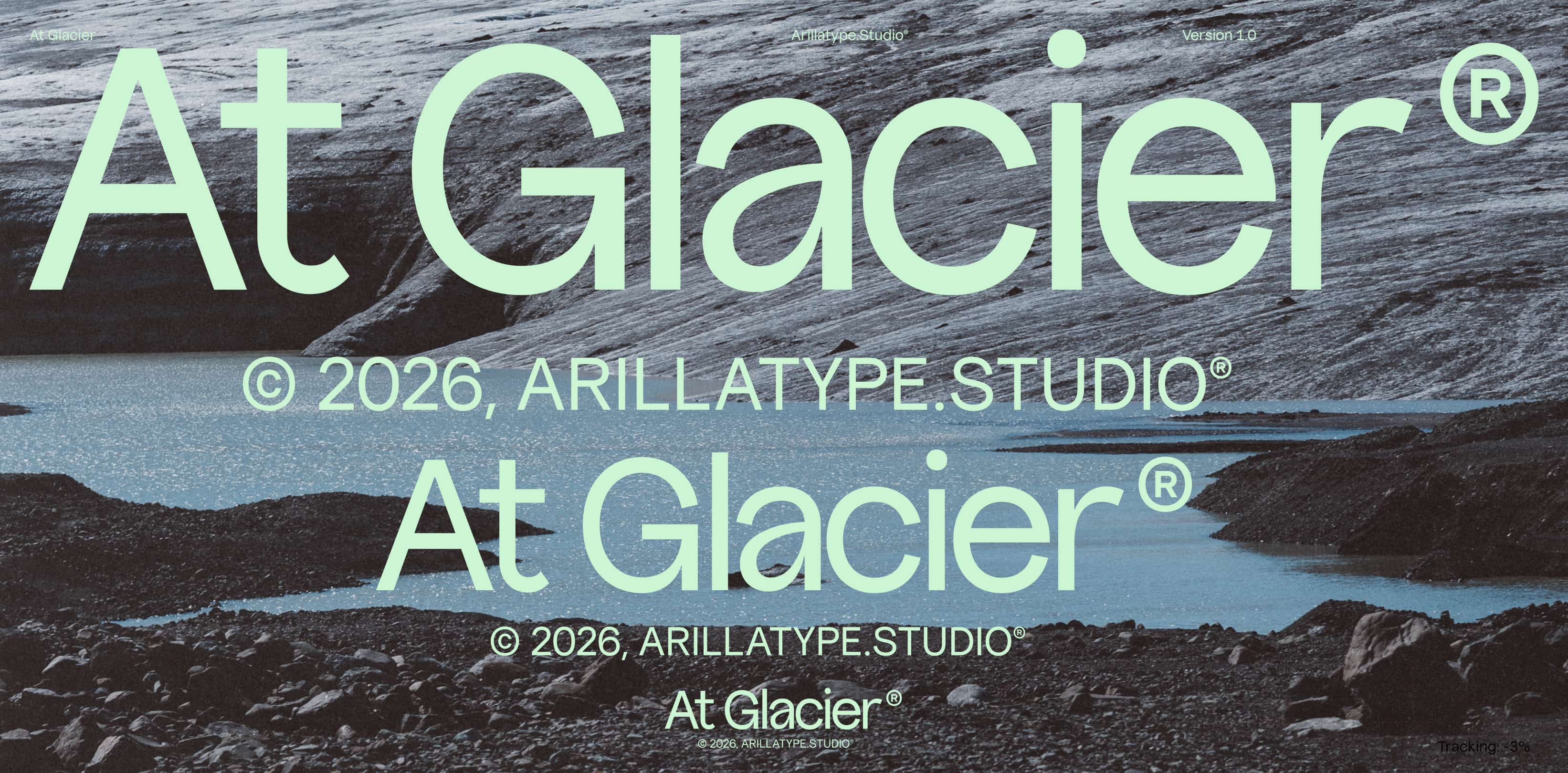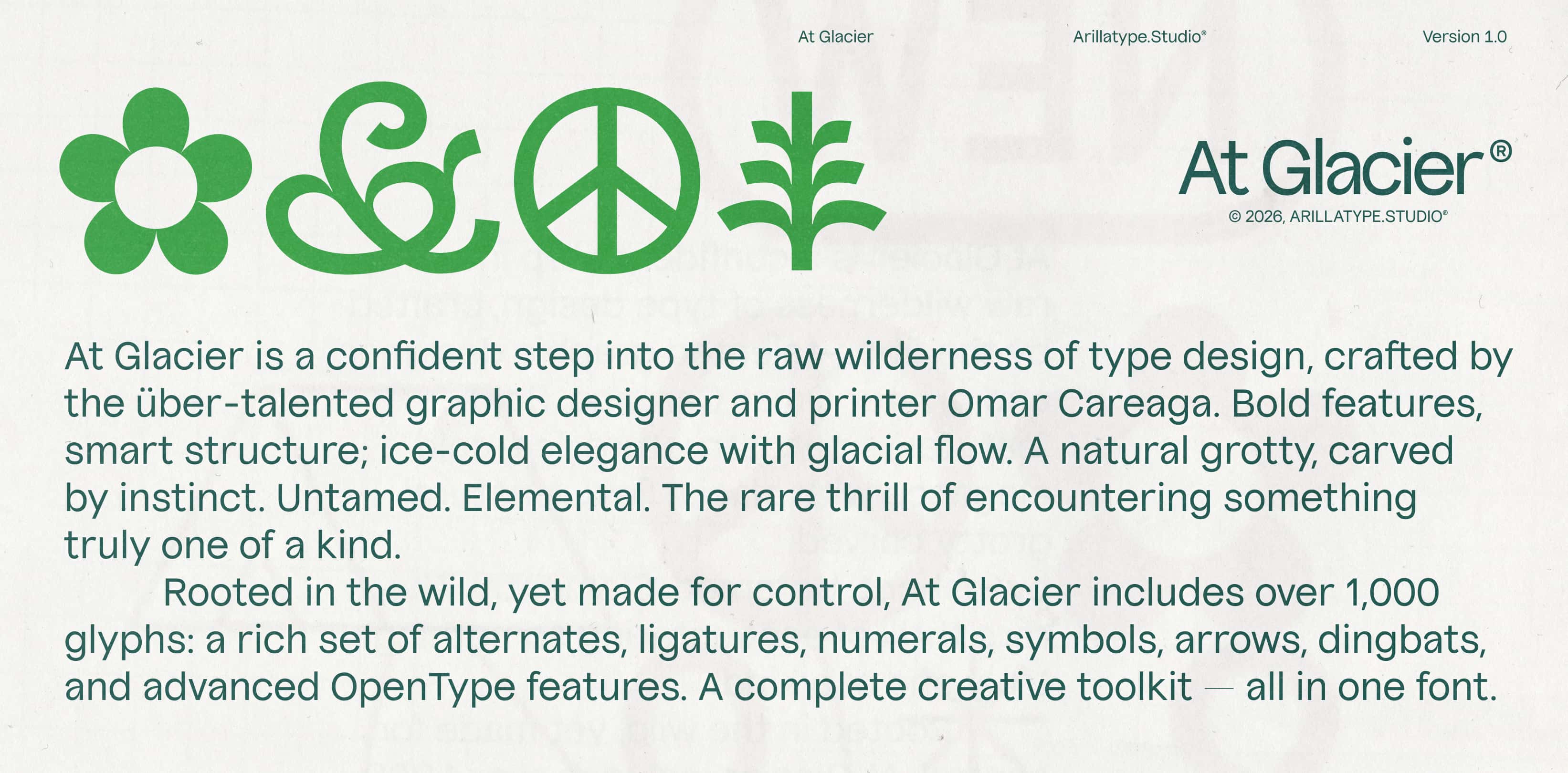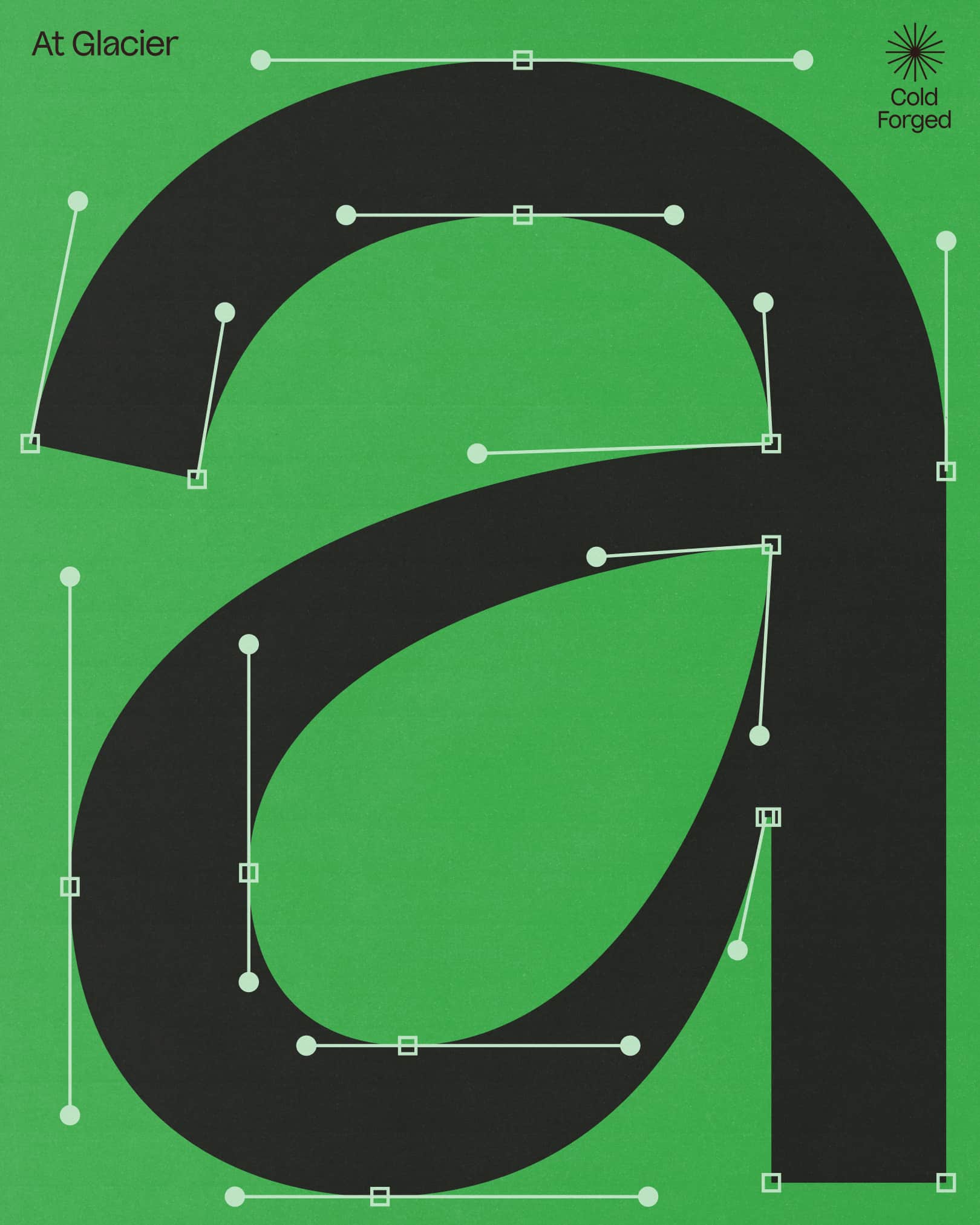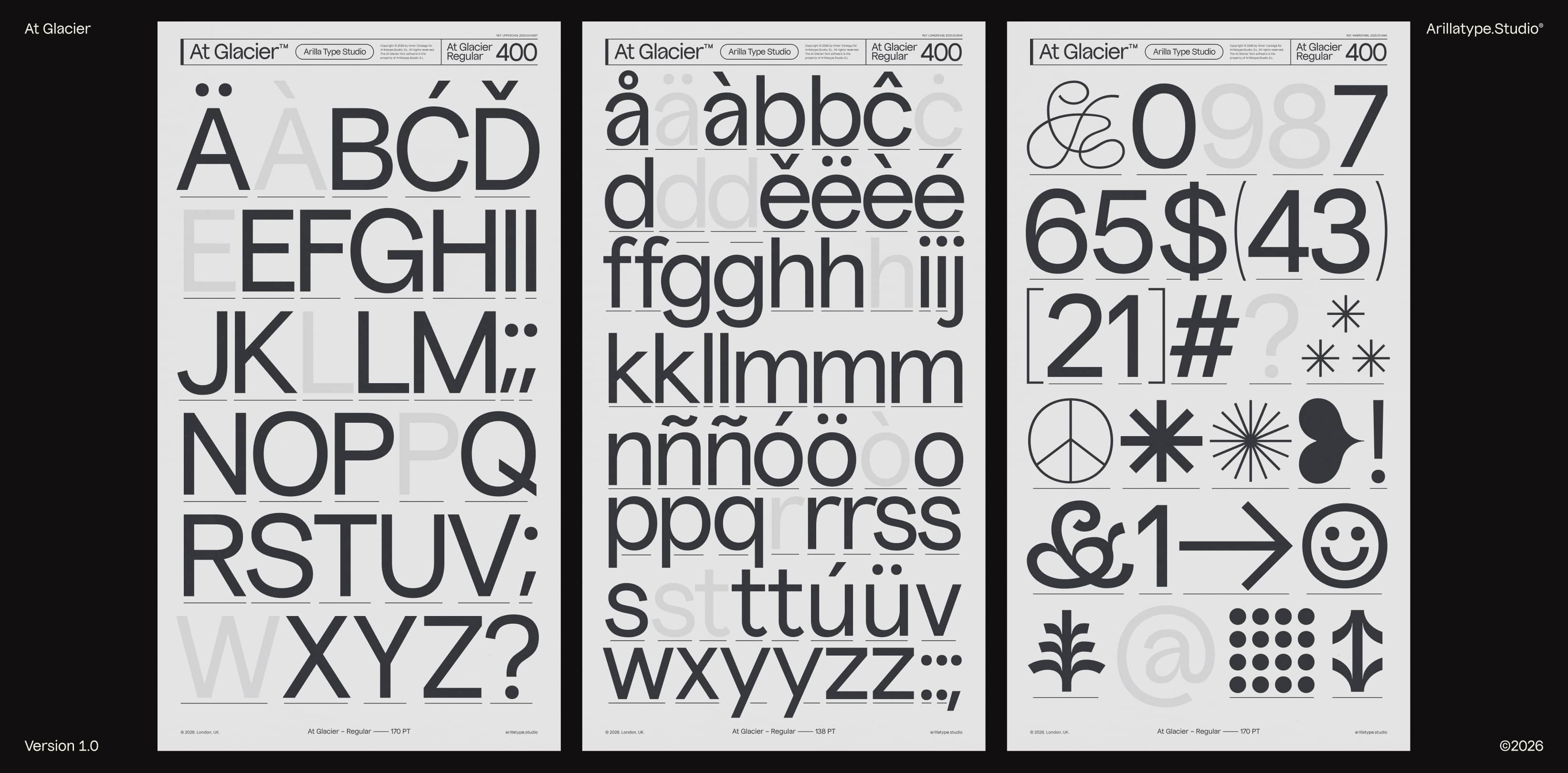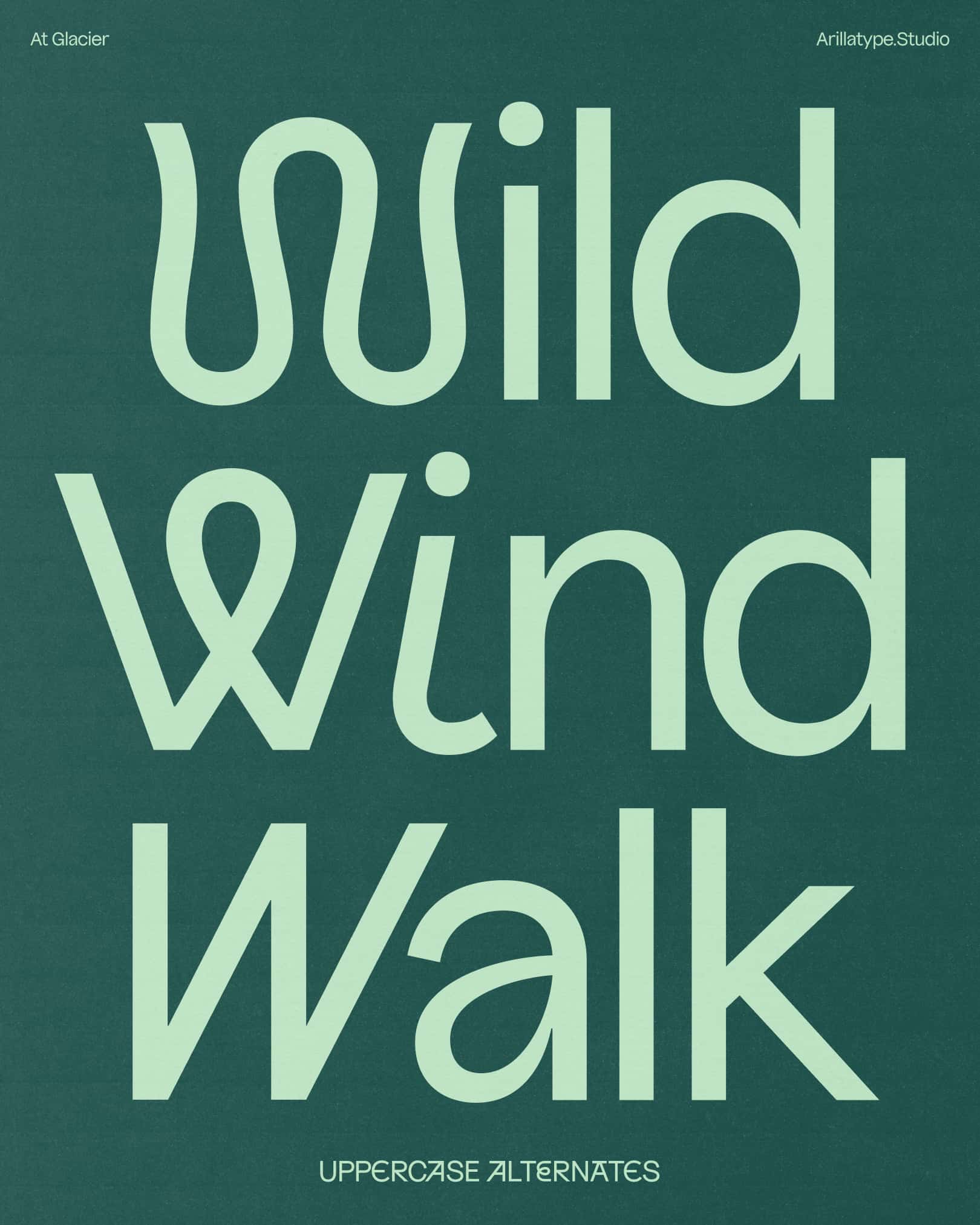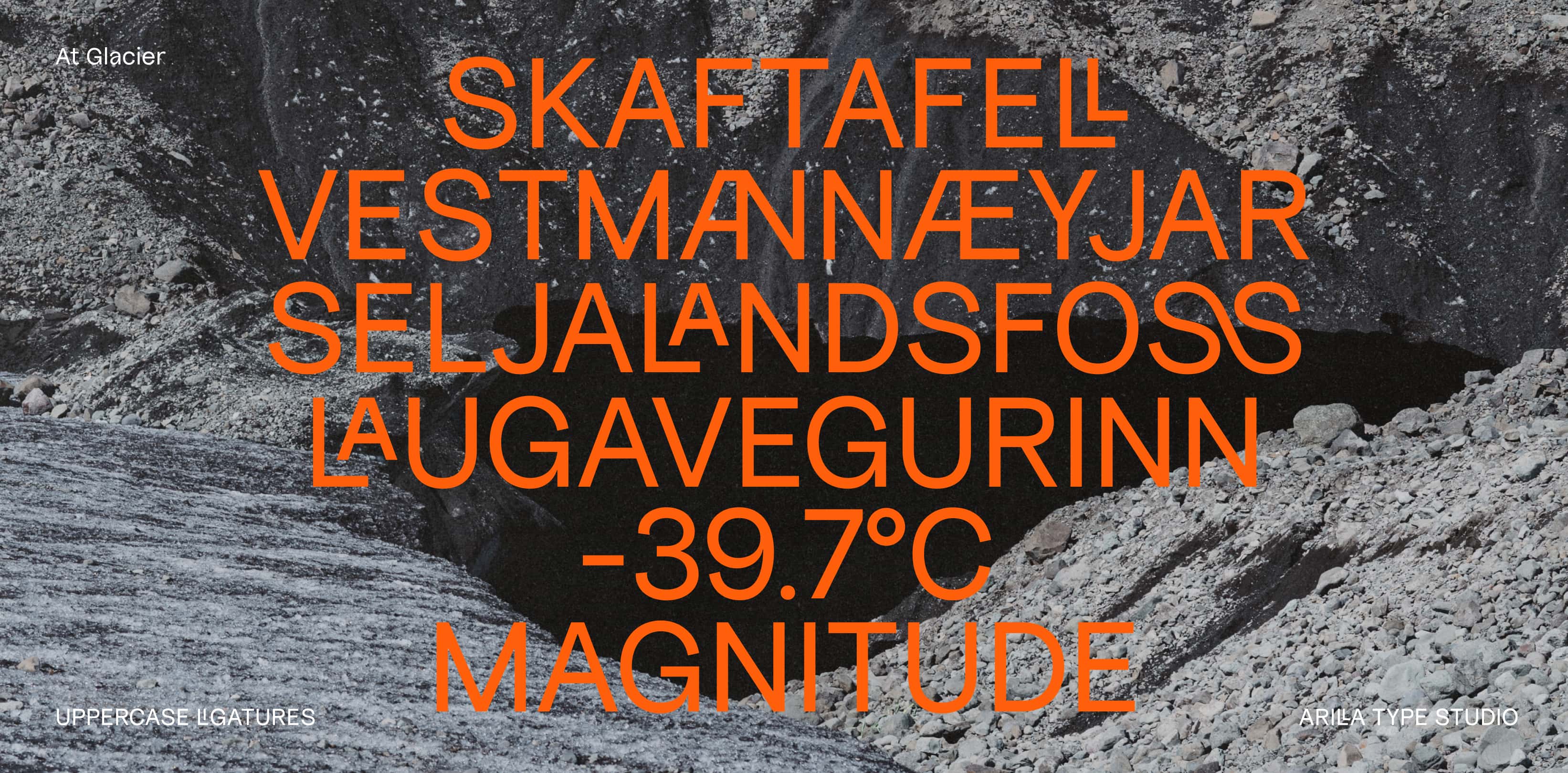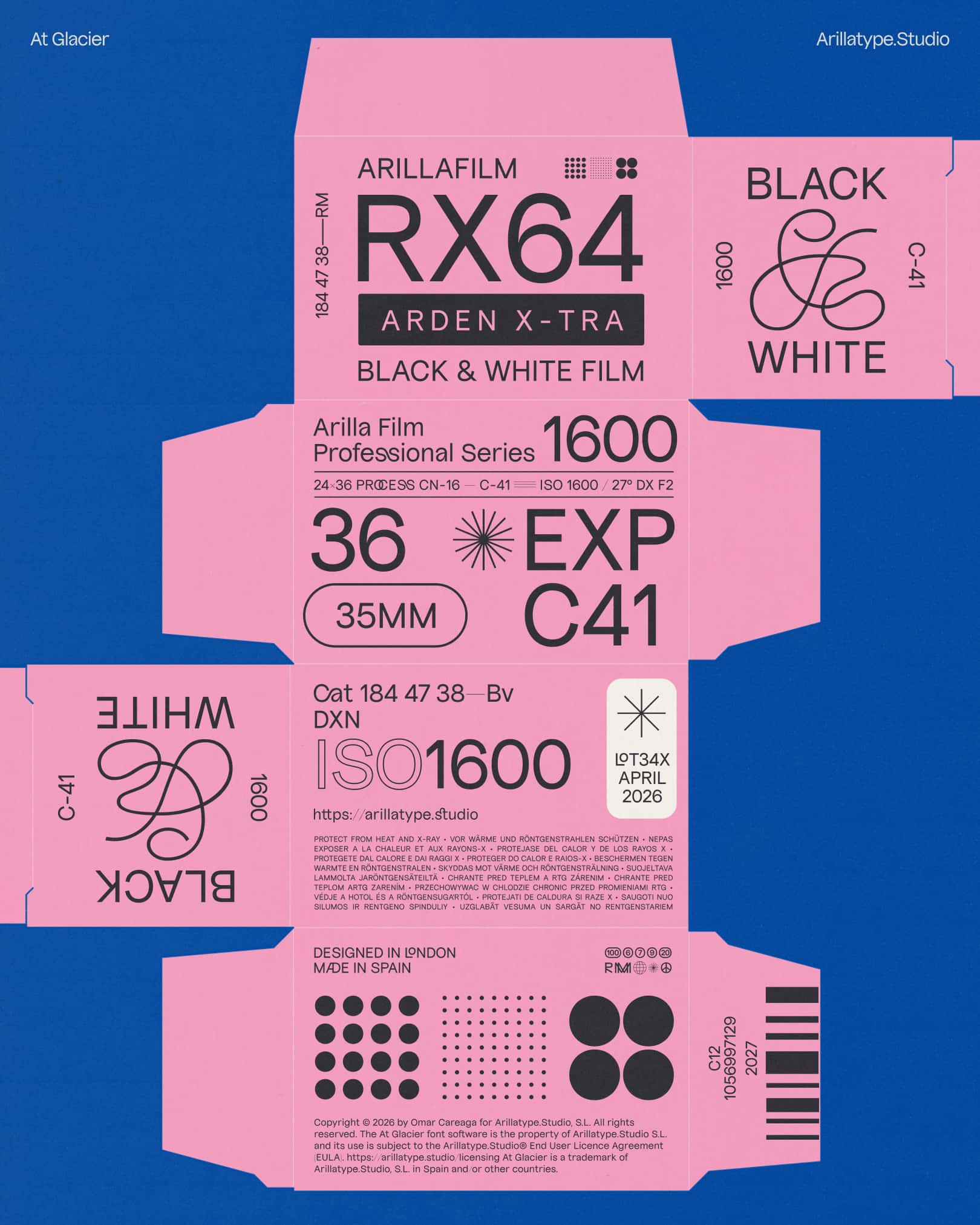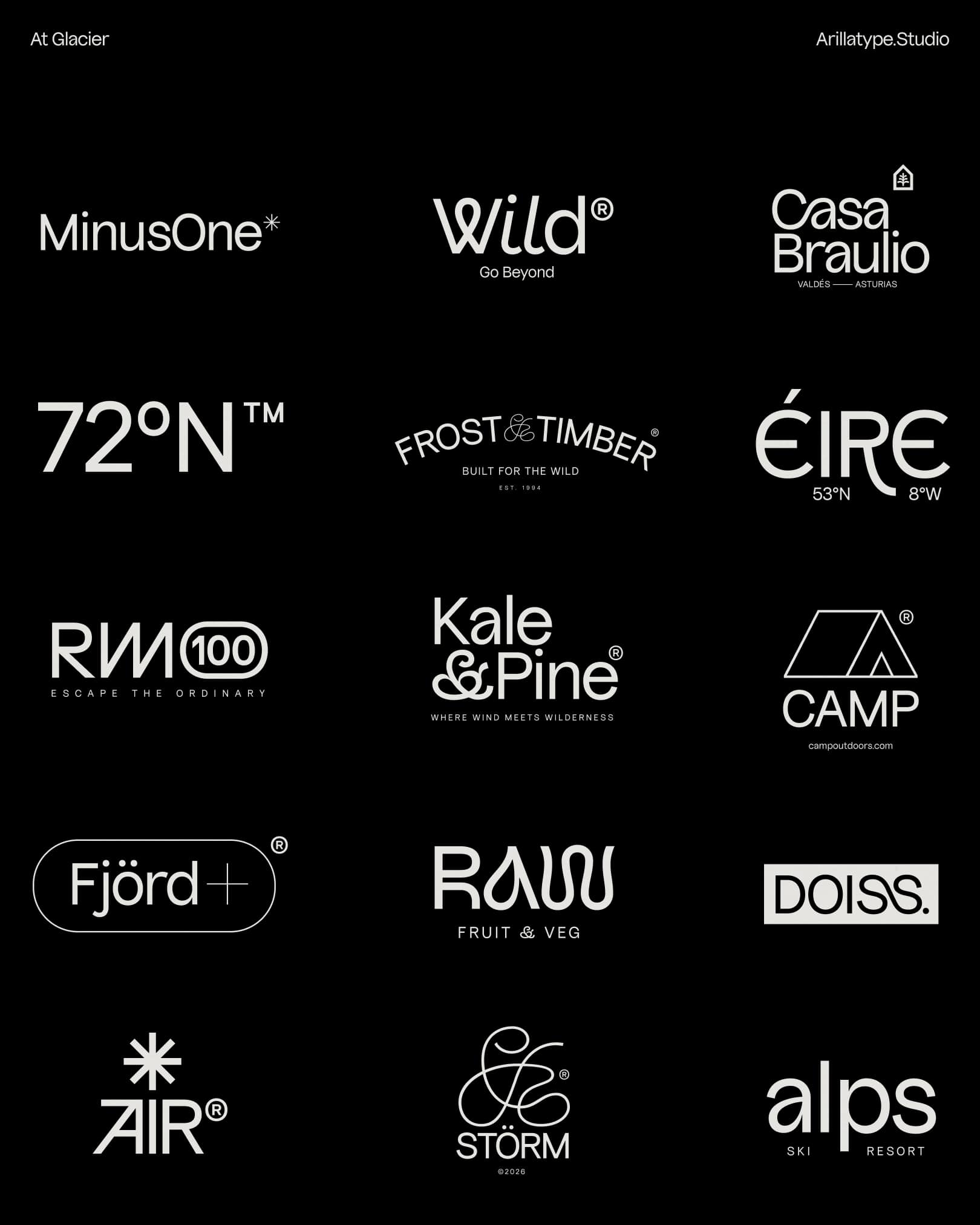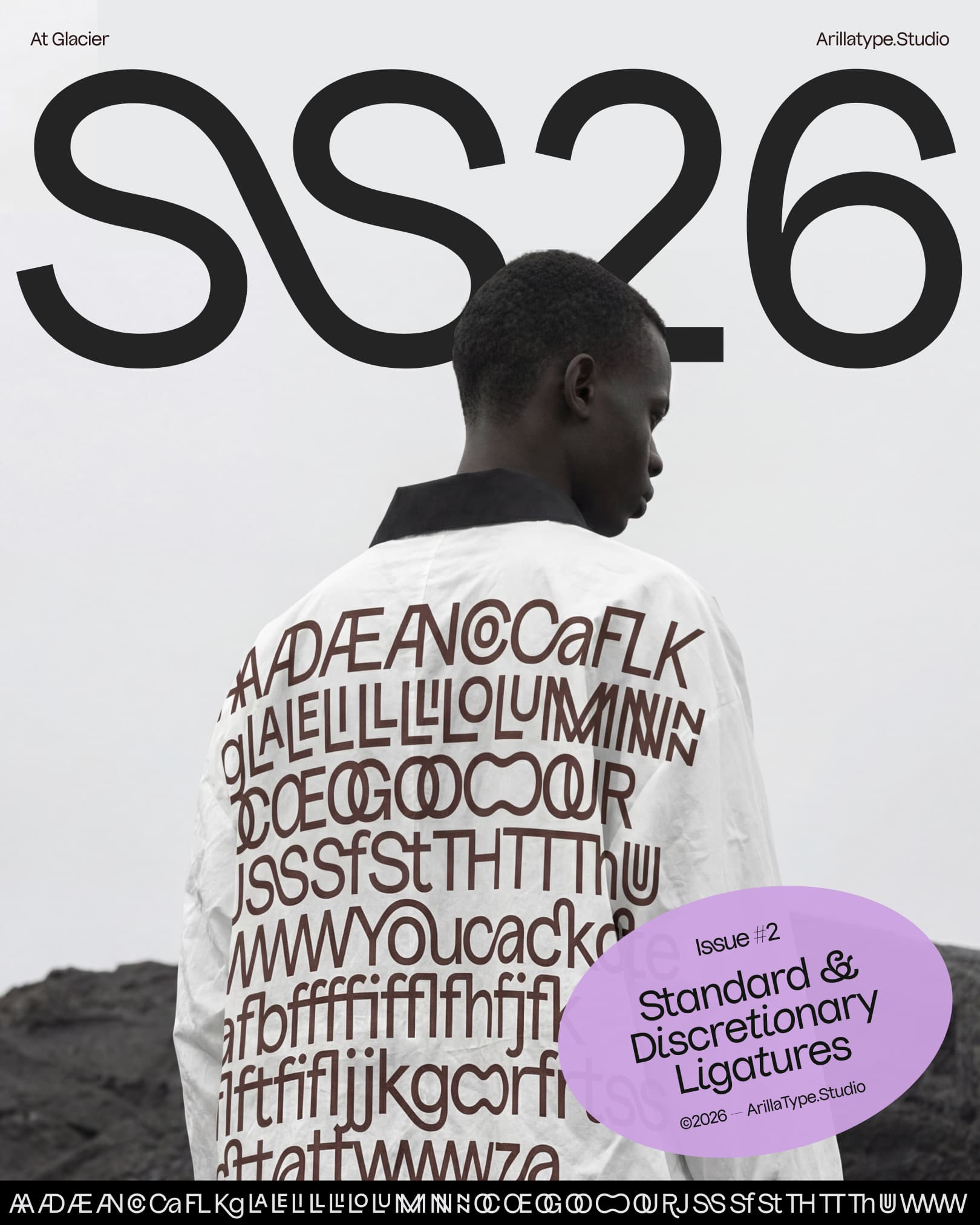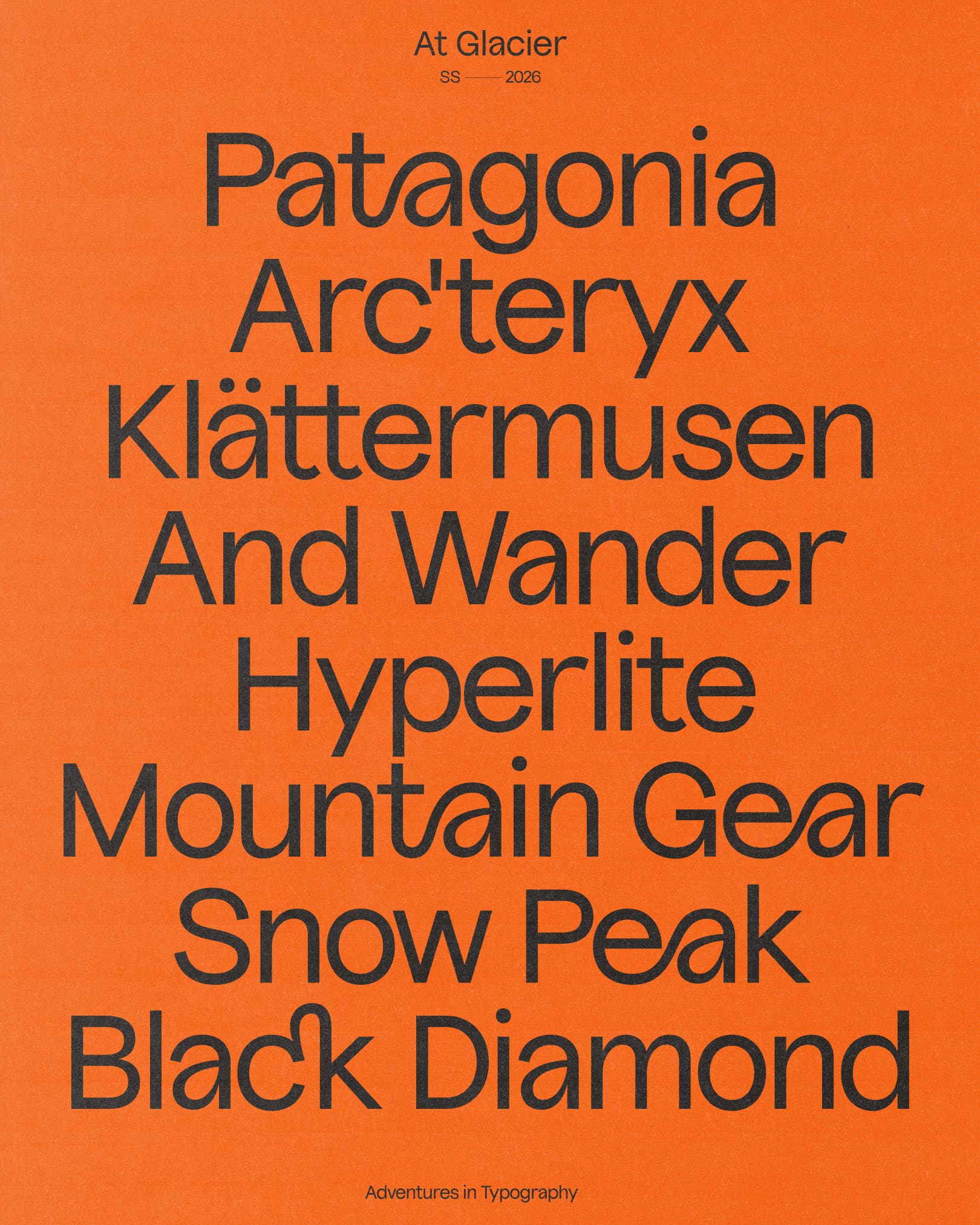
Glacier is a confident step into the raw wilderness of type design, crafted by the über-talented graphic designer and printer Omar Careaga. Bold features, smart structure; ice-cold elegance with glacial flow. A natural grotty, carved by instinct. Untamed. Elemental. The rare thrill of encountering something truly one of a kind.
Rooted in the wild, yet made for control, Glacier includes over 1,000 glyphs: a rich set of alternates, ligatures, numerals, symbols, arrows, dingbats, and advanced OpenType features. A complete creative toolkit — all in one font.
And also: Stylistic set 1, 2, 3, 4, 6, 7, 8, 9, Stylistic alterates, Character variant 2, Standard ligatures, Ordinals, Capital spacing, Proportional, lining, old-style, Tabular figures, Slashed zero, Fractions, Superscript and subscript.
Omar Careaga